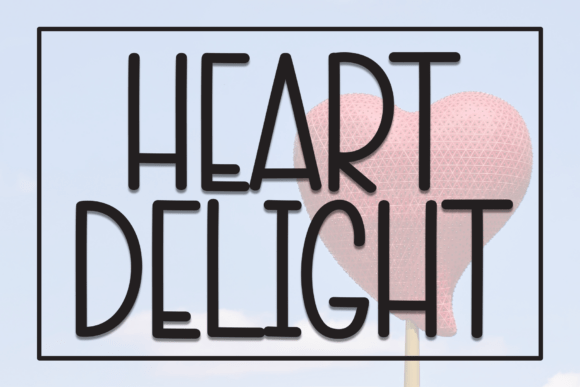
Introduction to Heart Delight Font
Introducing a delightful and affectionate handwritten display font that’s sure to captivate your audience – infusing both warmth and charm into your designs.
Perfect for adding a playful flair to wedding invitations, heartfelt cards or any creative project requiring a dose of whimsy, this font is the embodiment of joyous expression and lightheartedness Convey your messages with this delightful handwritten font, and let your creativity radiate with its sweet and friendly demeanor.
Heart Delight Font offers exceptional quality and versatility, making it a valuable addition to your design toolkit. Whether you’re creating for personal projects or commercial use, Heart Delight Font delivers professional results.